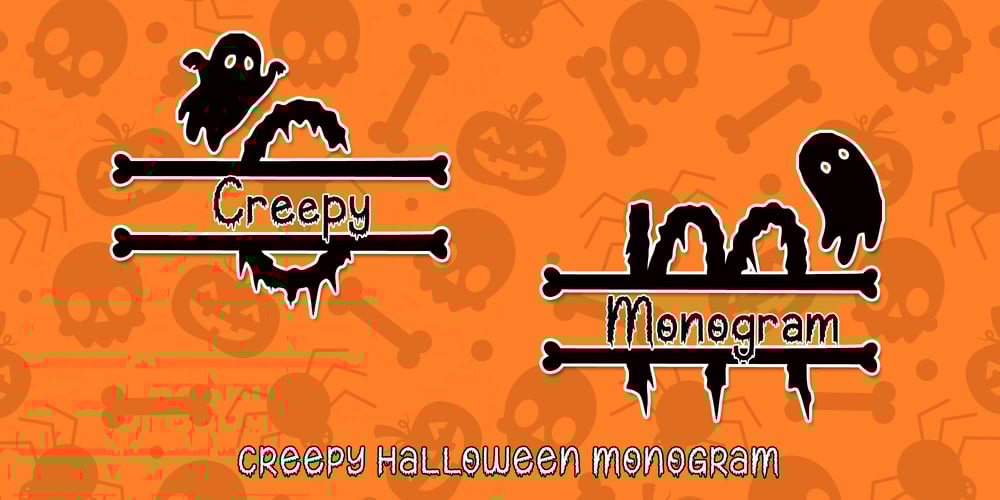
Creepy Halloween Monogram Font Family was designed by Agung Eko Nugroho and published by AEN Creative Studio. Creepy Halloween Monogram contains 2 styles and family package options. Creepy Halloween Monogram is a detailed and creepy duo font (display and decorative). It is perfectly suitable for any Halloween-related project or crafty idea! It is also PUA encoded which means you can access all of the glyphs and swashes with ease!